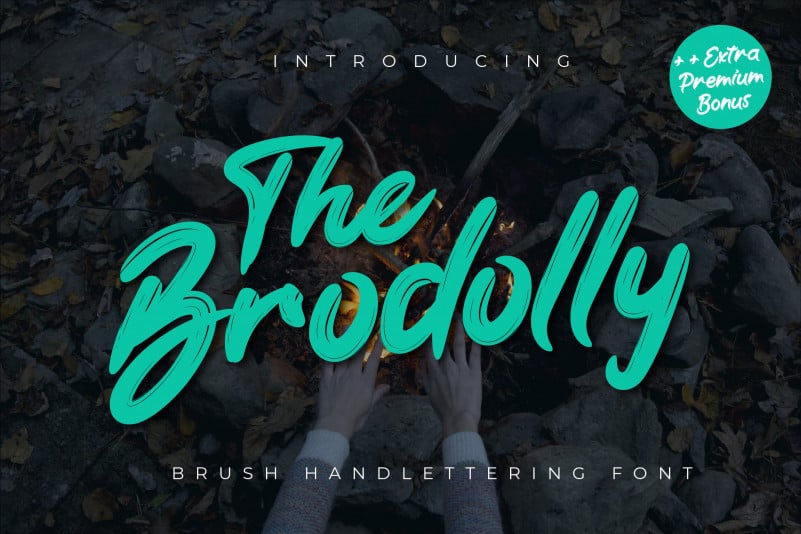
The Brodolly Brush Font
The Brodolly Brush Font is an incredibly unique display font. Masterfully designed to become a true favorite, this font has the potential to bring each of your creative ideas to the highest level!